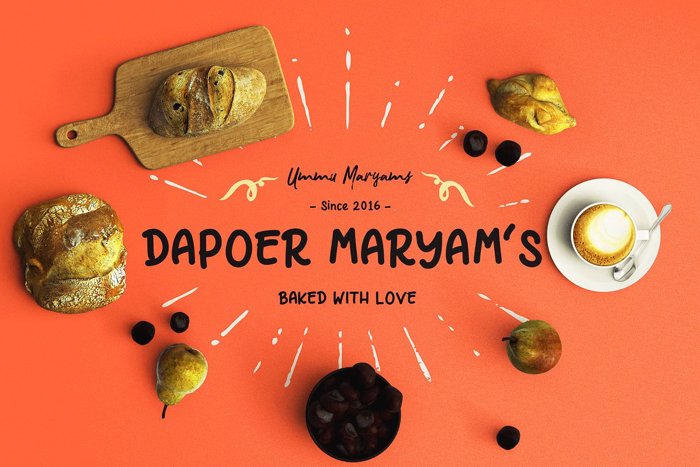
Nocturnal Hand Font
Hand Style
Introducing!!! Nocturnal Family
Nocturnal consists of 2 fonts and extra swash equipped with international language Our latest fonts support all your design needs that have artificial tastes, look stylish and elegant Nocturnal is Perfect for Product Packaging,product design , label,logo,photography,invitation,branding,stationery, and any projects